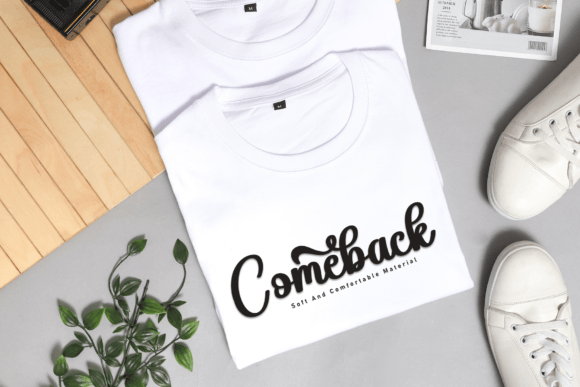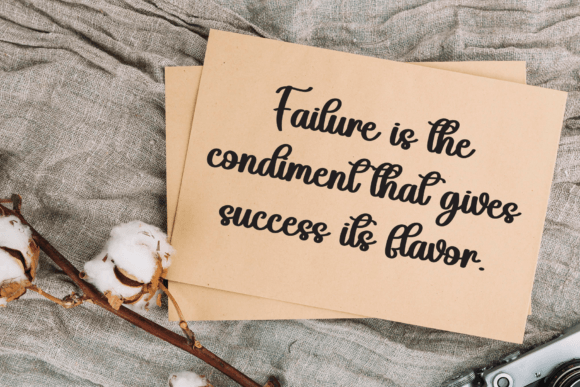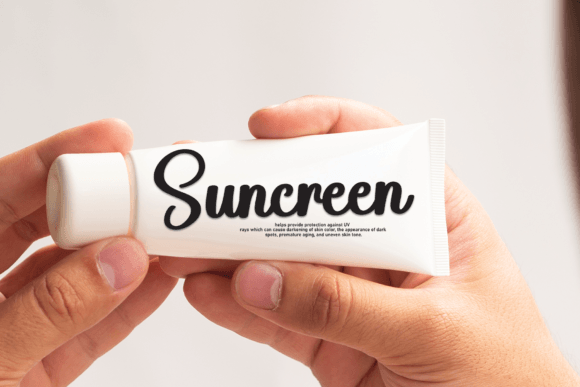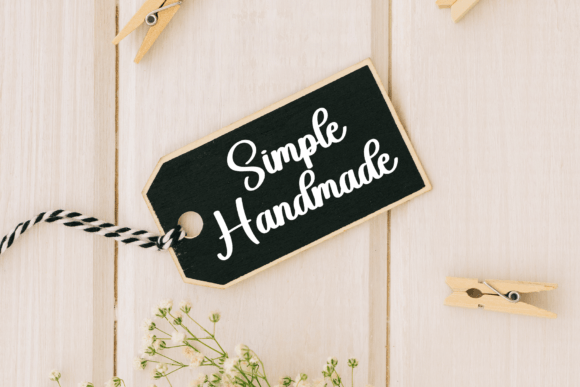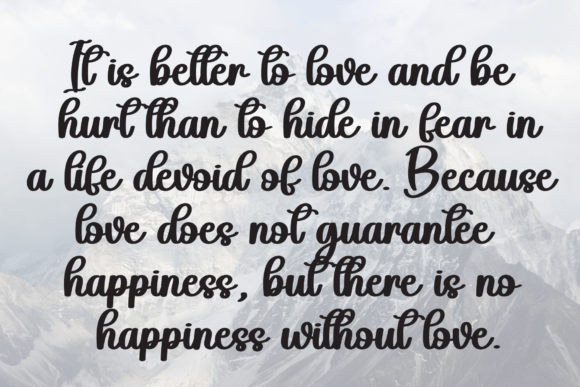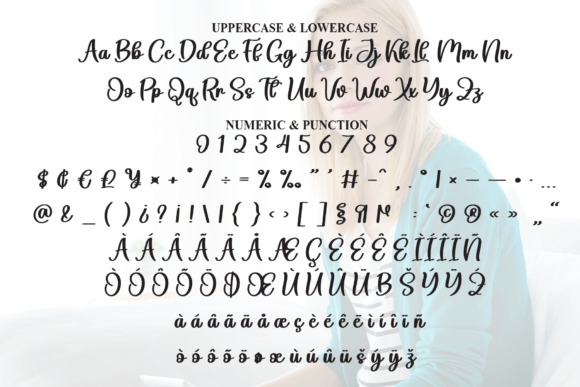
The Blonde Aunty Font: A Bold and Playful Companion for Your Designs
I still remember the design project that led me to discover the Blonde Aunty font. I was working on a fun, DIY craft tutorial for a client, and I needed a font that would capture the playful, carefree spirit of the project. As I scrolled through my font library, I stumbled upon Blonde Aunty, and it was love at first sight! The bold, handwritten letters with a smooth, confident stroke instantly resonated with the project’s vibe. In this article, I’ll share my experience with the Blonde Aunty font, its features, and how to make the most of it in your designs.
An Honest Review of Blonde Aunty Font
What I Love About Blonde Aunty ✨
• ✅ Bold and confident strokes: The wide, smooth letters make it perfect for headlines, titles, and emphasis text.
• ✅ Fun and playful style: Blonde Aunty adds a touch of whimsy to any design, making it ideal for creative projects, crafts, and casual designs.
• ✅ Ease of use: The font is straightforward to work with, even for beginners.
While Blonde Aunty is an excellent font, it’s not without its limitations. Here are a few things to keep in mind:
• ⚠️ Legibility at small sizes: Blonde Aunty can become a bit tricky to read at very small font sizes. It’s best used at larger sizes (30px and above) for optimal readability.
• ⚠️ Overuse can be overwhelming: Due to its bold nature, it’s essential to use Blonde Aunty in moderation to avoid overwhelming the design.
4. Take advantage of OpenType features, such as stylistic alternates and glyphs, to add more variety to your text.
The Story Behind Blonde Aunty Font
Blonde Aunty was designed with the intention of creating a bold, yet approachable font for creative projects. The designer aimed to craft a font that would evoke a sense of fun and playfulness, while still being legible and easy to read. Although the designer’s background is unclear, it’s evident that they drew inspiration from everyday handwritten notes and signs.
Q: What type of projects is Blonde Aunty best suited for?
A: Blonde Aunty is perfect for casual or creative designs, such as craft tutorials, DIY projects, and social media graphics.
Q: Is Blonde Aunty available in different weights or styles?
A: Currently, Blonde Aunty is available as a single font, but it does offer some OpenType features, such as stylistic alternates and glyphs.